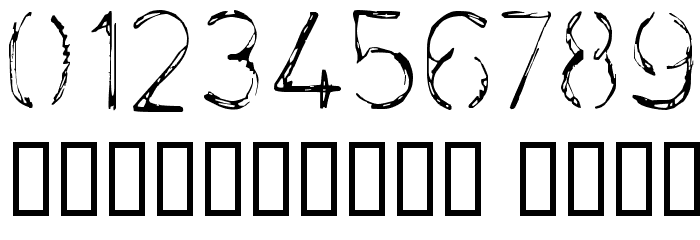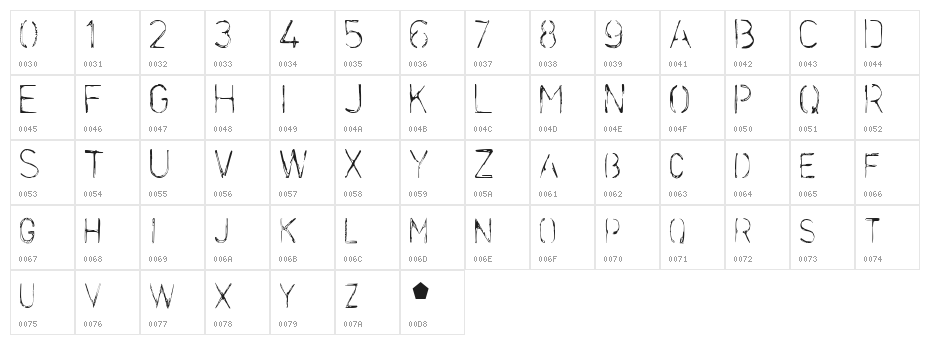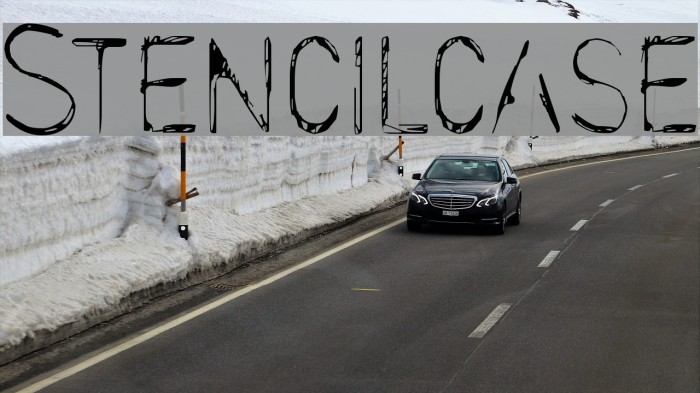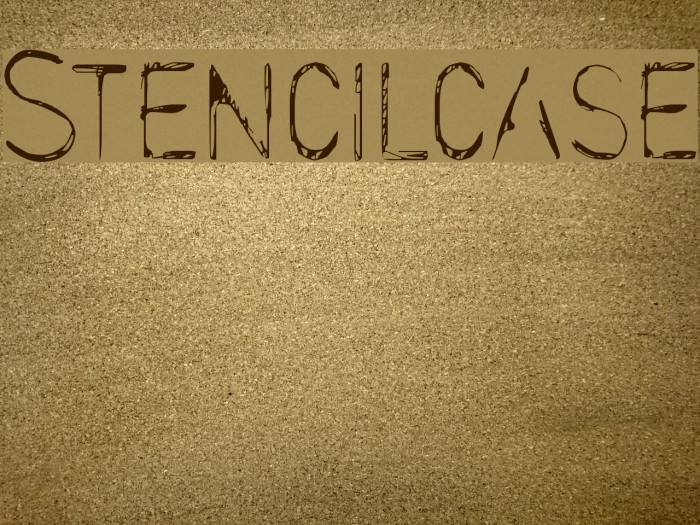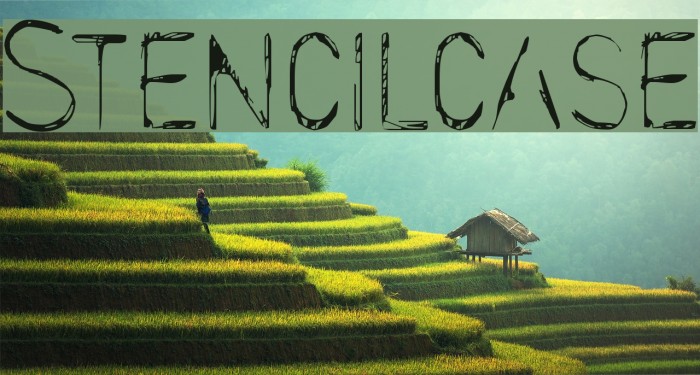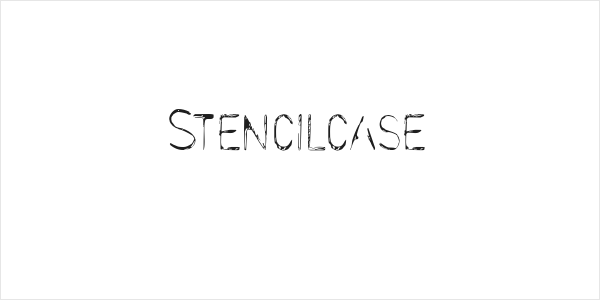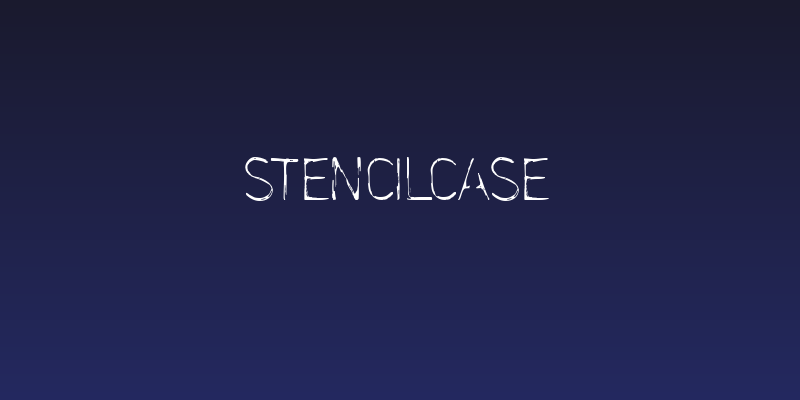
Stencilcase Font
Stencilcase Description
This font features a distinctive stencil design with a rugged, distressed appearance. The characters are bold and uppercase, with a unique texture that gives them a worn, industrial look. The edges are rough and irregular, adding to the font's gritty aesthetic. The numbers and special characters maintain this style, ensuring a cohesive appearance across all glyphs. This font is ideal for projects that require a strong, impactful visual statement, such as posters, signage, or branding materials that aim to convey a sense of toughness or authenticity.
| Overall Style | Industrial, Rugged |
| Use Case | Headlines, Logos, Signage |
| Proposed Projects | Ideal for posters, signage, branding, and projects requiring a strong, industrial aesthetic. |